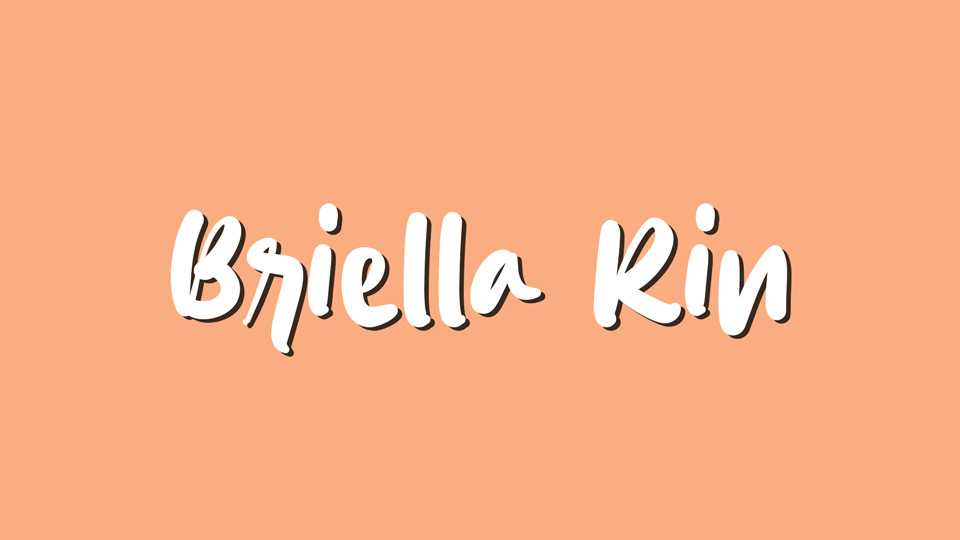
Download Briella Rin font, a sweet handwritten typeface for creating the cutest and adorable designs. From greeting cards and invitations to social media graphics and branding materials, Briella Rin font will bring a playful energy to any project.